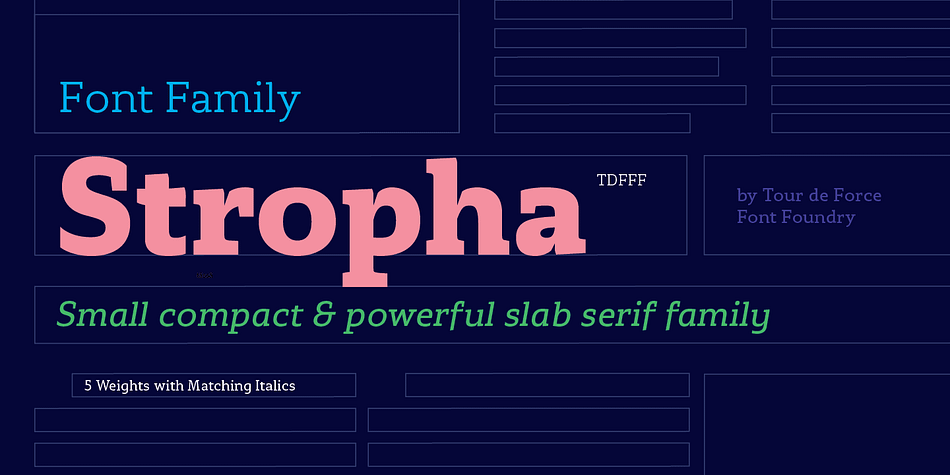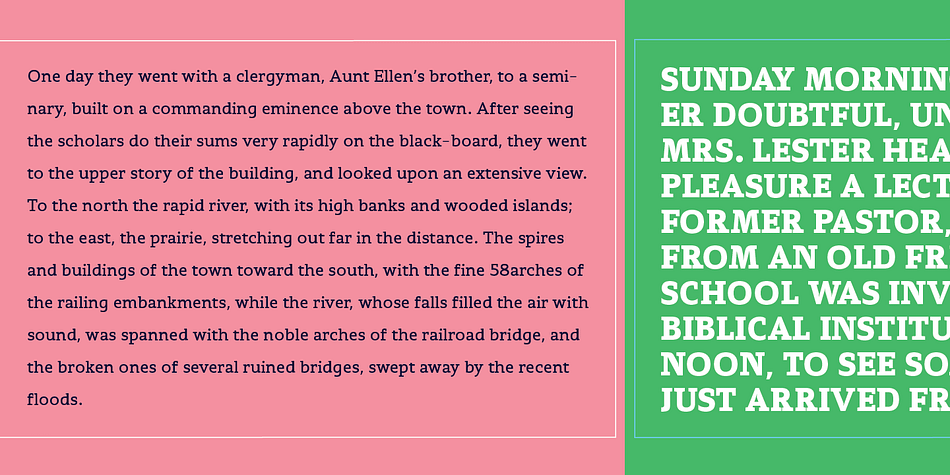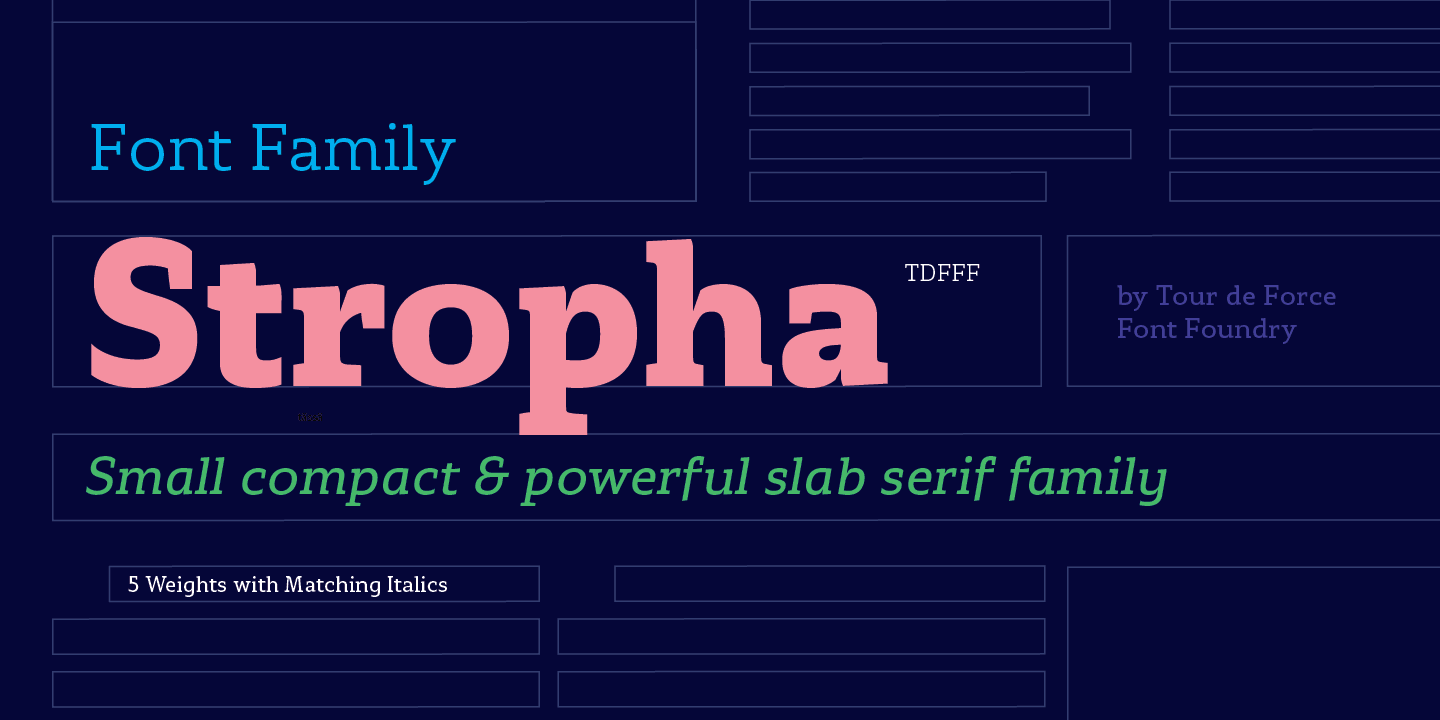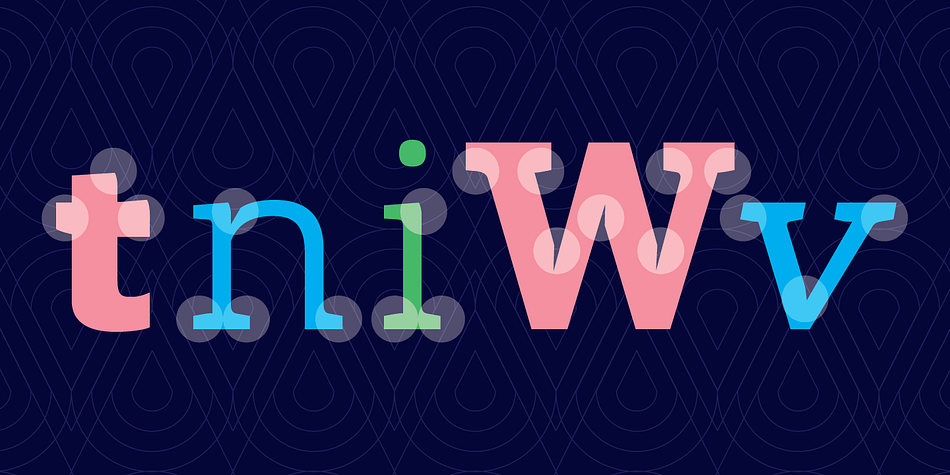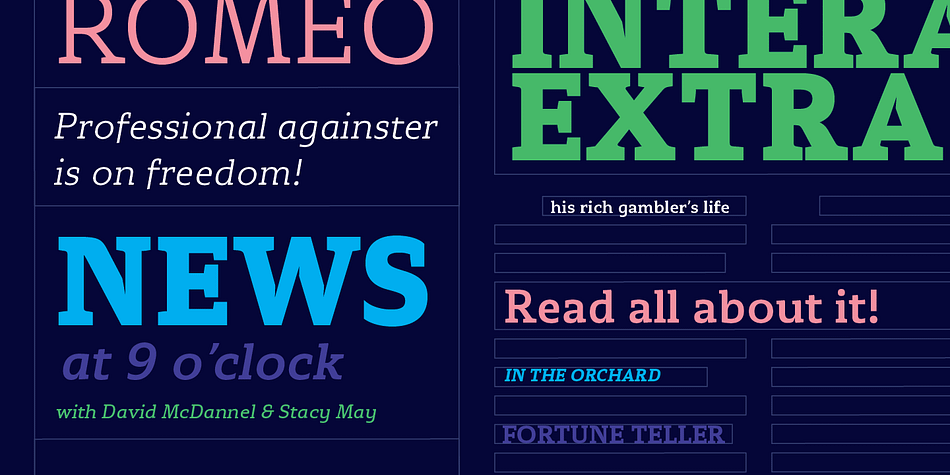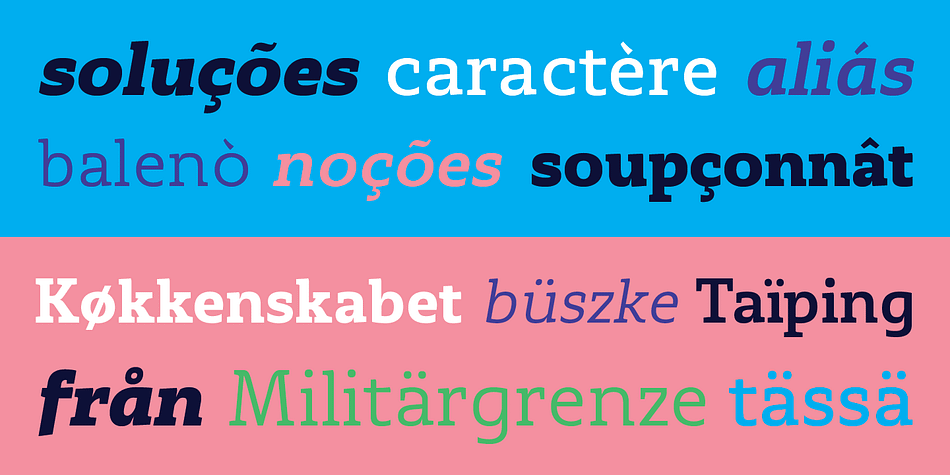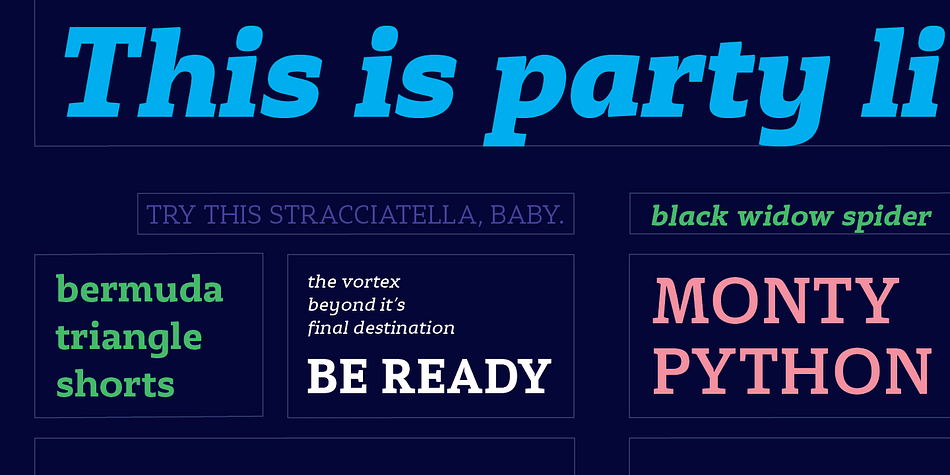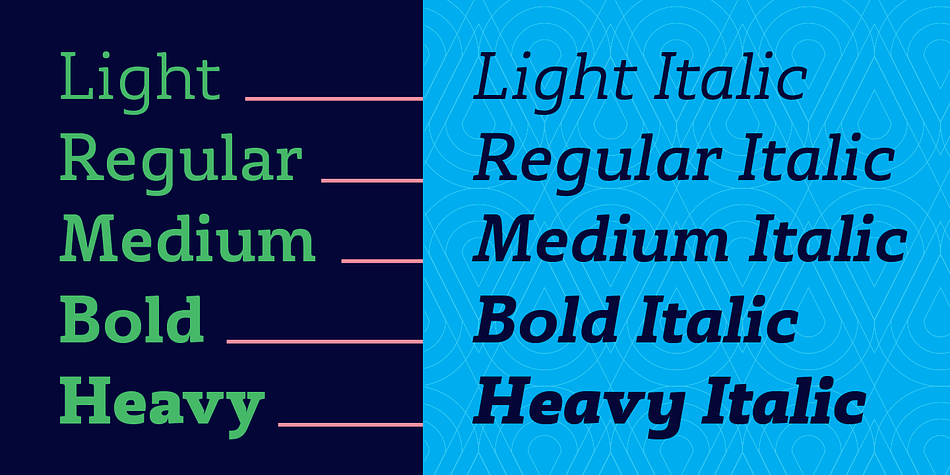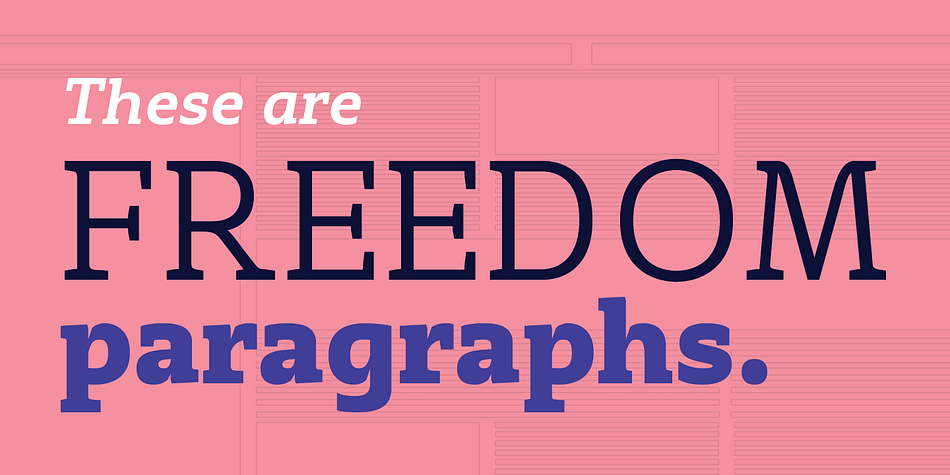
Designed by Dusan Jelesijevic, Stropha is a slab serif font family. This typeface has ten styles and was published by Tour de Force Font Foundry.
Stropha is compact slab serif font family that comes with matching Italics. With distinctive differences between letter stems and with five weights only, Stropha is imagined as small, but “all you really need” family. It’s original, with characteristic serifs, with deep ink traps, curvy top diagonal endings and gentle curvy touches in details. Contains Extended Latin character set. Fully applicable in any situation, from branding and editorial design to webfont usage.